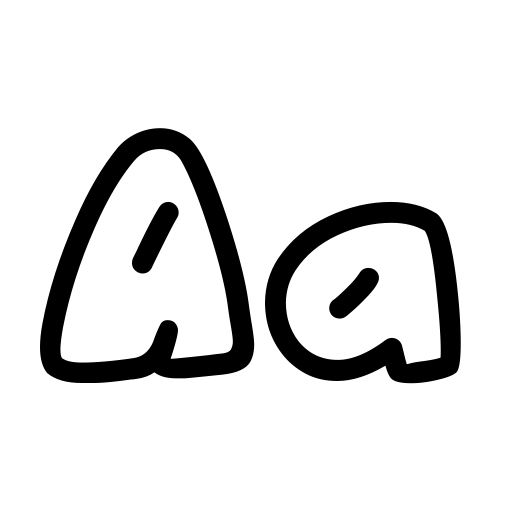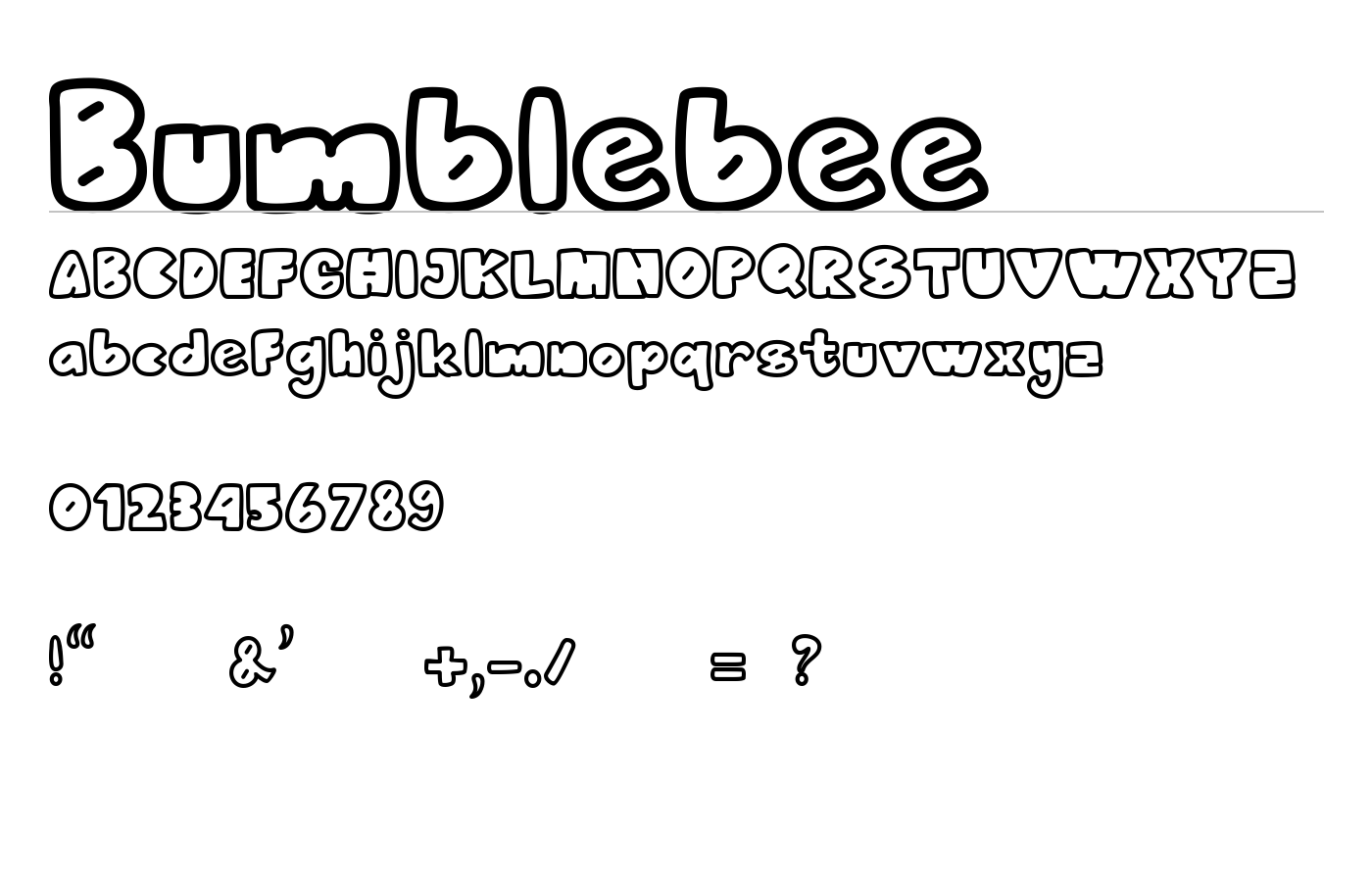
Bumblebee is a playful and rounded sans serif font with a bold, chunky weight and a charming hand-drawn style that feels friendly and approachable. Its irregular, bubbly letterforms and casual strokes make it perfect for fun, informal designs like children's books, playful logos, and creative posters. This font adds a whimsical and lively touch wherever a cheerful and lighthearted mood is desired.
Bumblebee Font
About Bumblebee Font
| Font family | Bumblebee Font |
| Designer | Rabas Design 2019 |